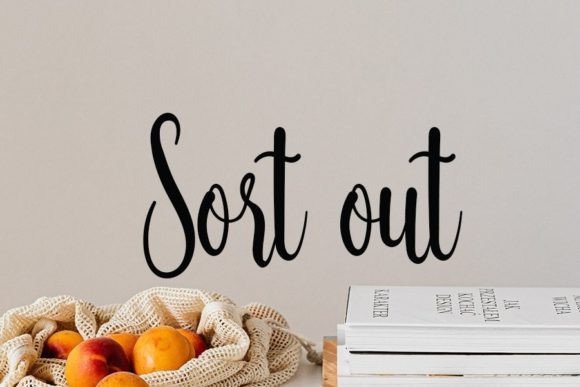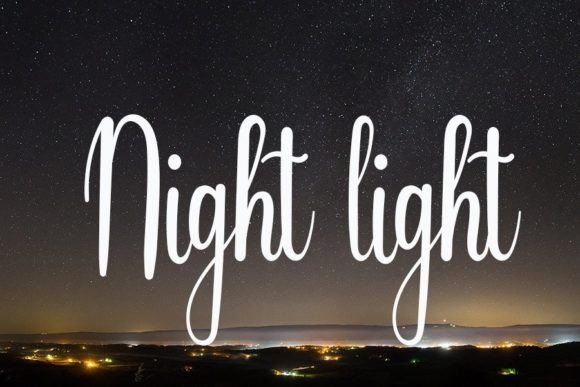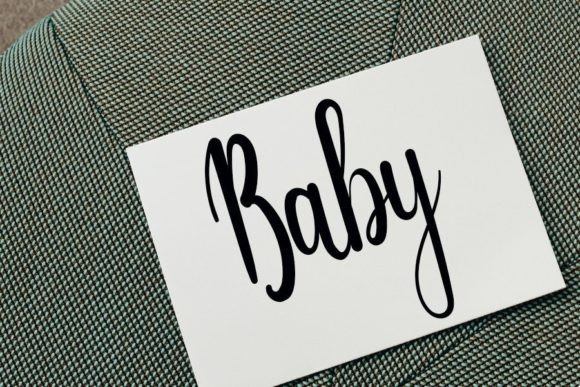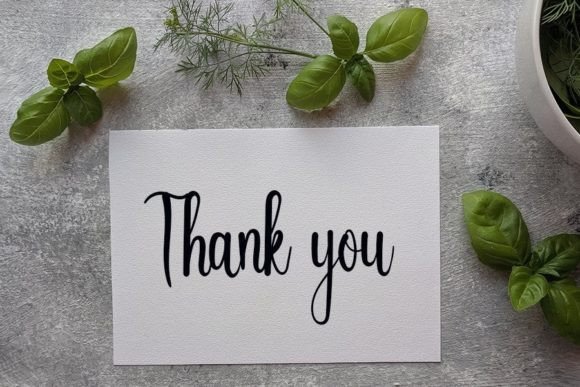
Smart Life Font
“Smart Life Font: Cool Handwritten Elegance with a Modern Touch
Introducing Smart Life, a cool handwritten font that radiates a modern vibe and spotless form, drawing inspiration from classic calligraphy. Meticulously crafted with a perfect balance, not too thin and not too thick, Smart Life was designed to enhance the beauty of your projects, adding a touch of contemporary elegance.
This font is more than just a typeface; it’s a design statement that seamlessly fuses classic calligraphy influences with a modern flair. Smart Life captures the timeless beauty of calligraphy while infusing a fresh and cool vibe into every character. Whether you’re working on invitations, branding, or any other creative project, Smart Life is ready to elevate your designs with its versatile charm.
The balanced and varied nature of Smart Life ensures that each character is impeccably designed, contributing to its overall visual appeal. The font’s spotless form makes it a reliable choice for a variety of design applications. Whether in the digital realm or in print, Smart Life adapts effortlessly to meet the demands of your creative vision.
Smart Life’s modern vibe adds a cool and contemporary touch to your projects. Its handwritten elegance imparts authenticity and sophistication, making it suitable for branding, logos, and any design context where a modern yet timeless aesthetic is desired.
Whether you’re working on digital graphics, wedding invitations, or any project that demands a touch of elegance, Smart Life is the font that stands ready. Its versatility allows it to enhance various creative endeavors, creating a visual experience that resonates with beauty and sophistication.
In conclusion, Smart Life is more than just a font; it’s a design companion that brings cool handwritten elegance to your creative toolkit. Let Smart Life be the brushstroke that enhances the beauty of your projects. Whether you’re aiming for a contemporary vibe or timeless classic allure, Smart Life is the perfect choice to infuse your designs with style and visual appeal.”